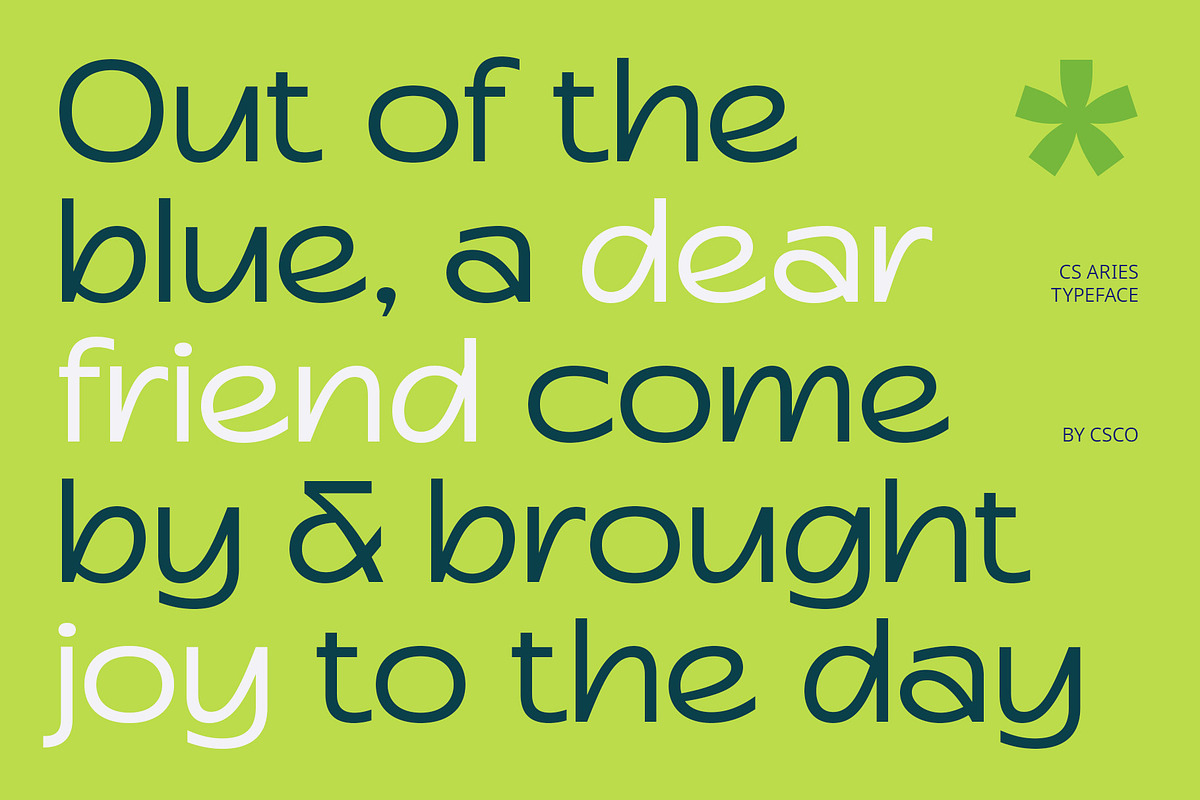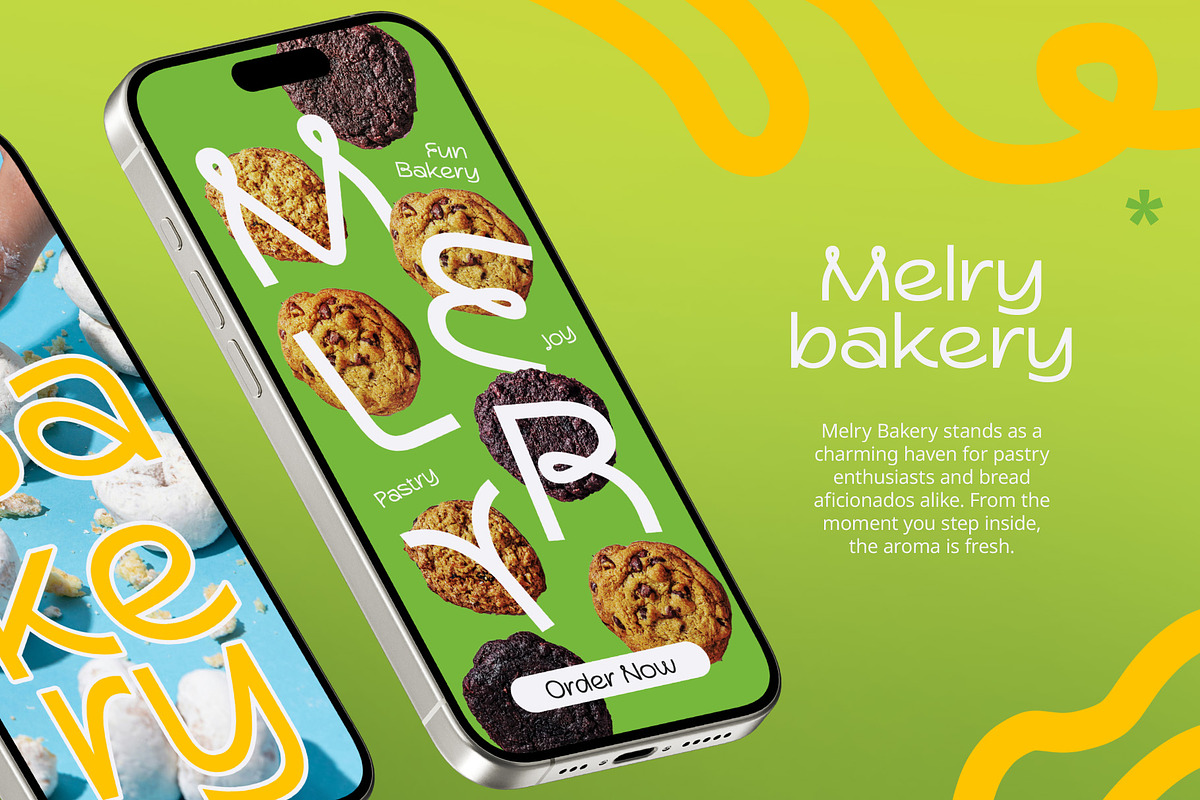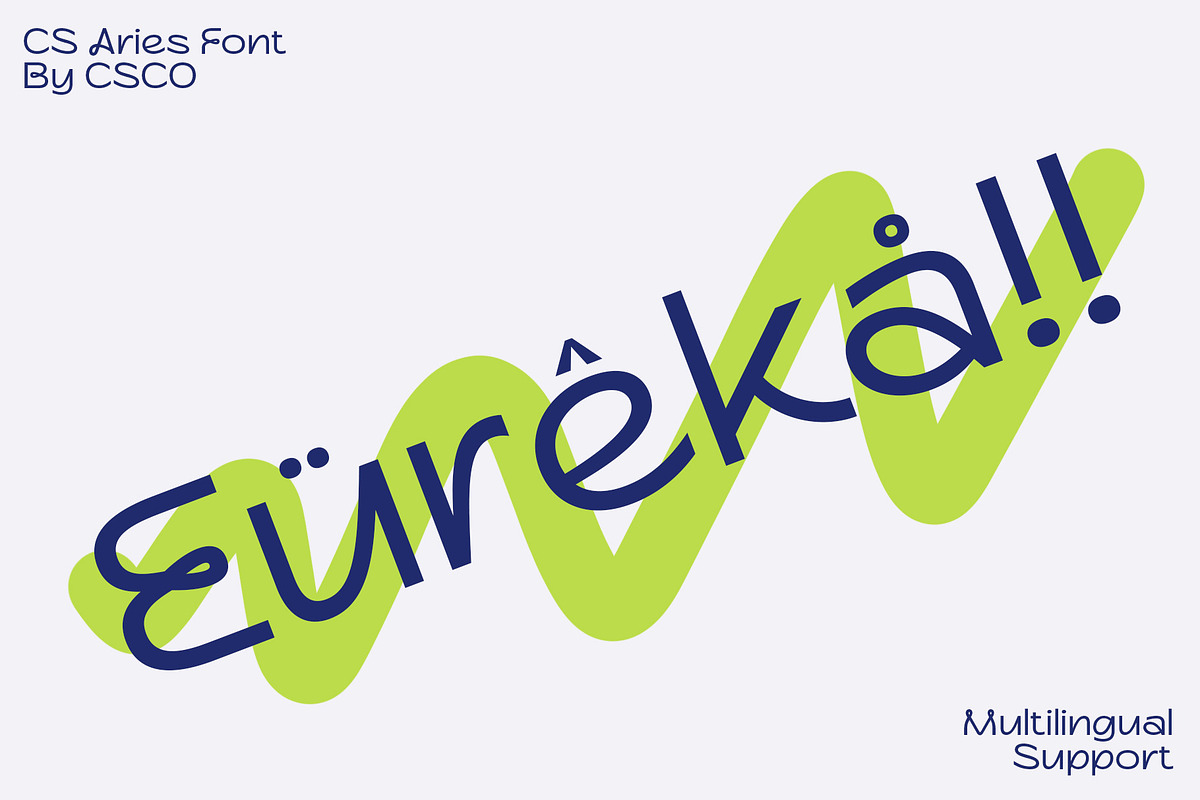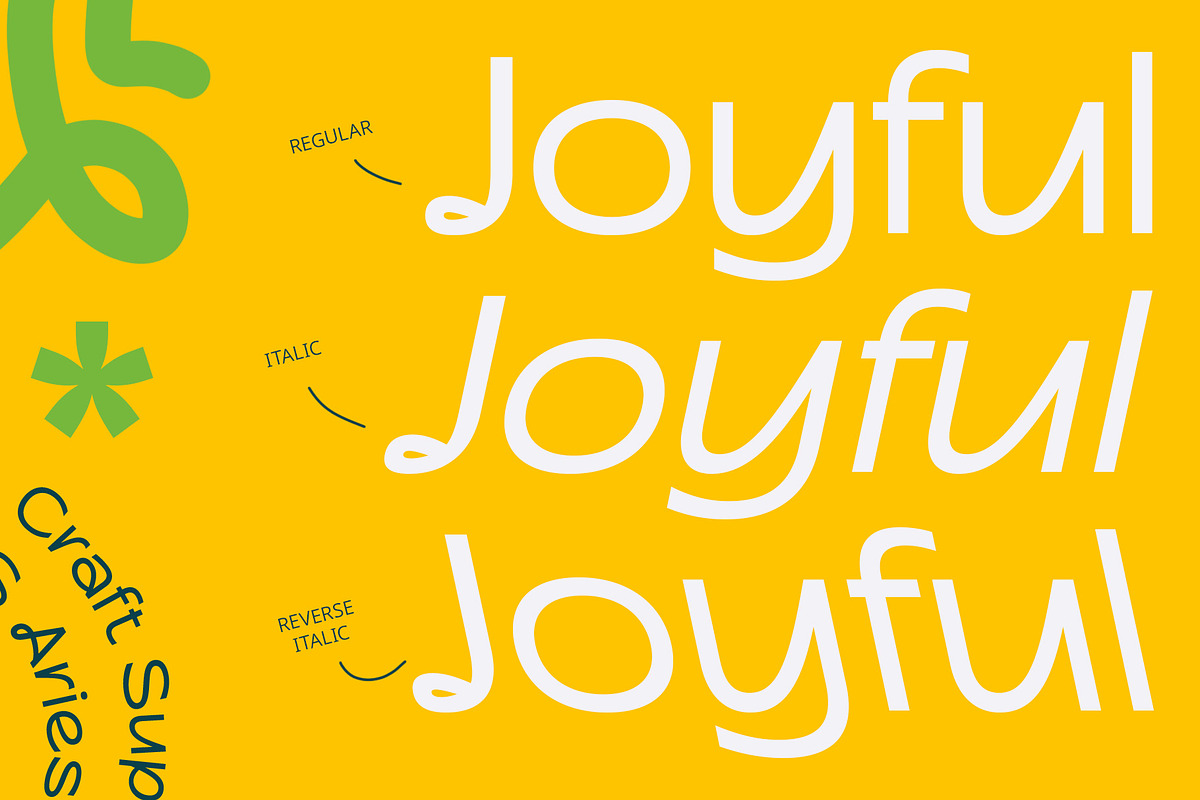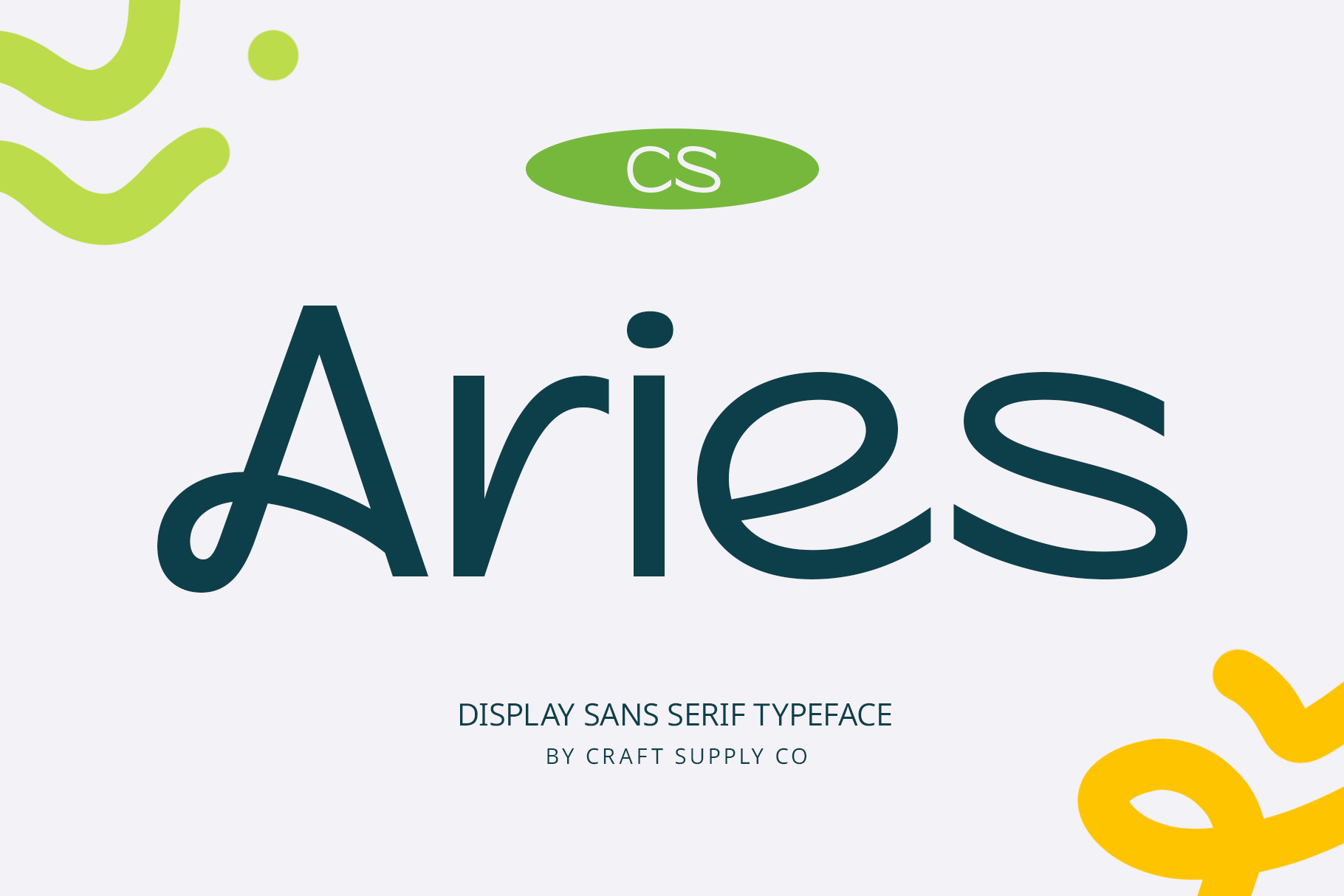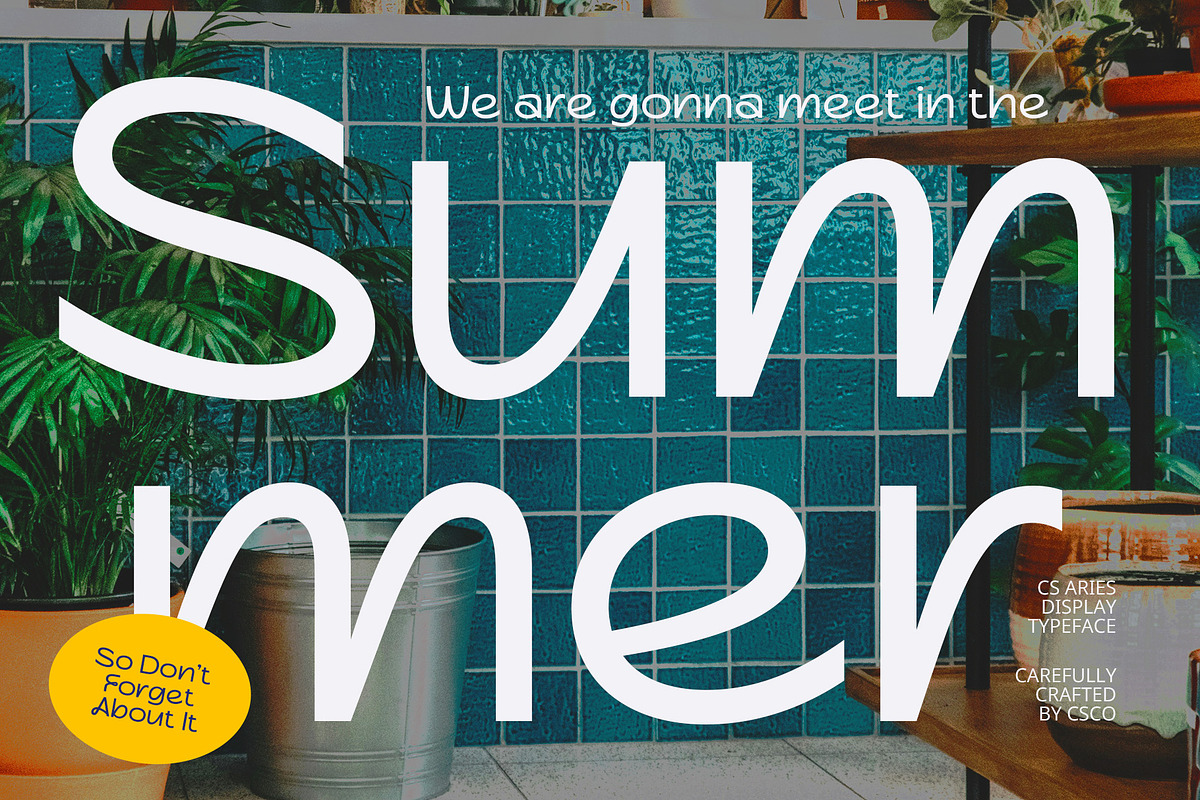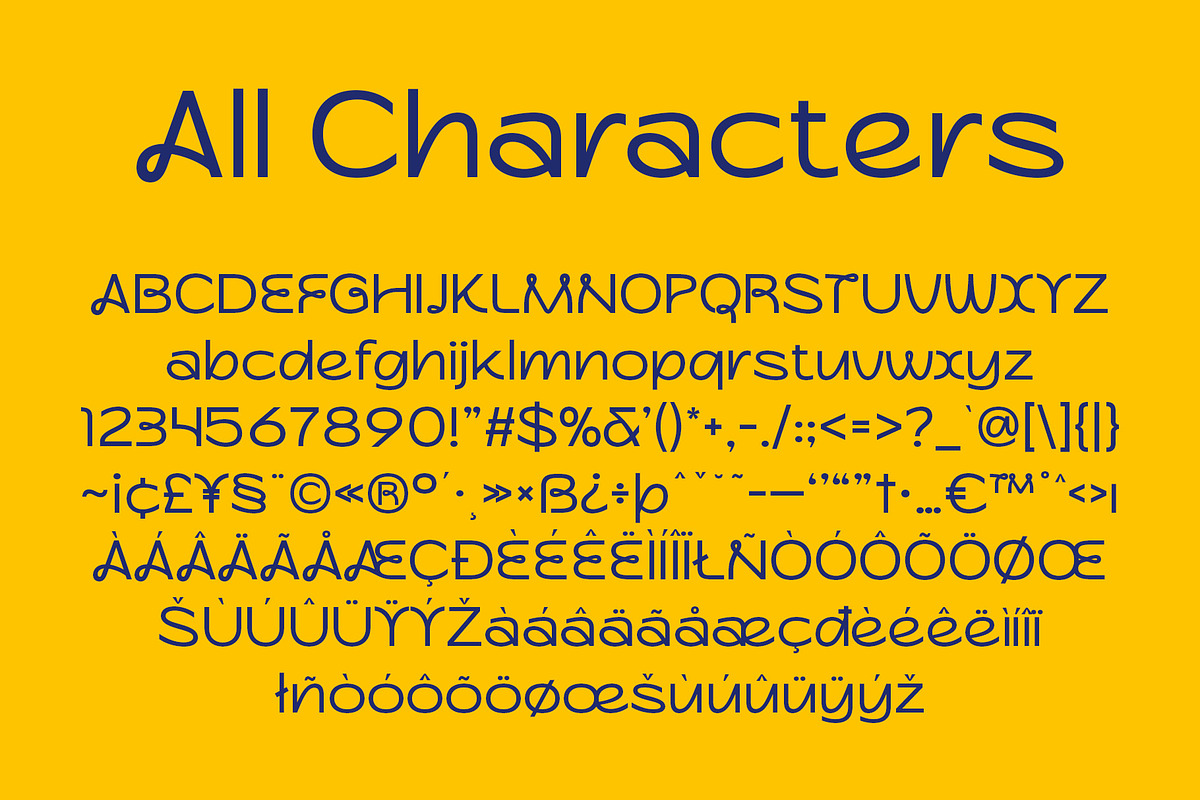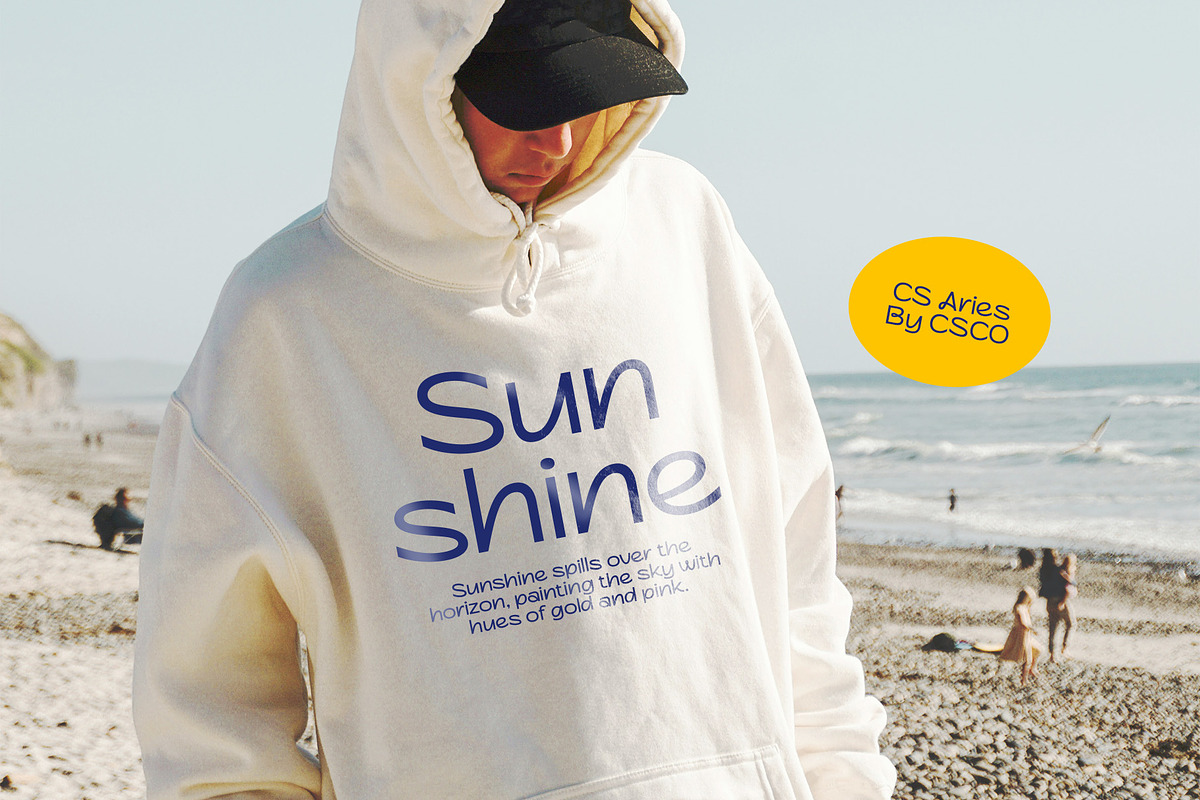
CS Aries – Display Sans Serif Font
CS Aries – Display Sans Serif Font: Playful Charm Meets Funky Design
Playful and Funky Sans Serif CS Aries is a display sans-serif font distinguished by its playful and funky design. Featuring rounded, whimsical shapes, this font exudes friendliness and charm, making it a standout choice for designs that aim to captivate and delight.
Rounded Shapes for a Joyful Appearance With its rounded and engaging forms, CS Aries adds a joyful touch to any project. Its cheerful and approachable style is perfect for food packaging, unique designs, and branding that seeks to create a fun and inviting atmosphere.
Versatile for Unique and Fun Designs CS Aries is ideal for applications where a playful and distinctive look is desired. Whether used for packaging, promotional materials, or creative projects, this font ensures your designs capture attention and convey a sense of fun and creativity.
Engaging and Eye-Catching Bring a touch of whimsy and appeal to your designs with CS Aries. Its fun, rounded shapes and friendly demeanor make it perfect for capturing attention and adding a unique, joyful element to your visual projects.
- CS Aries Regular
- CS Aries Italic
- CS Aries Reverse Italic